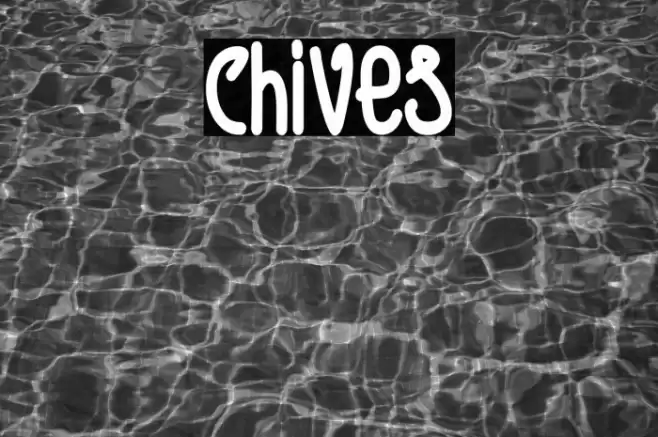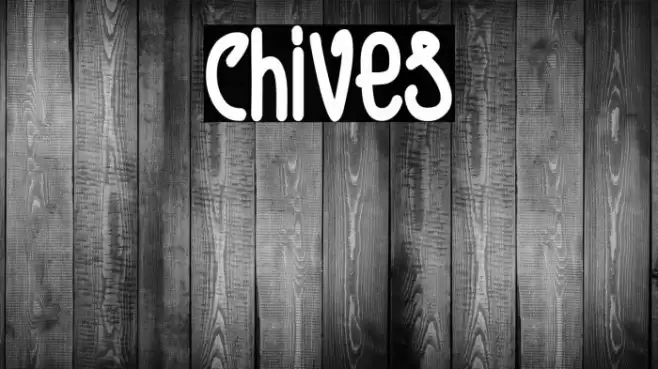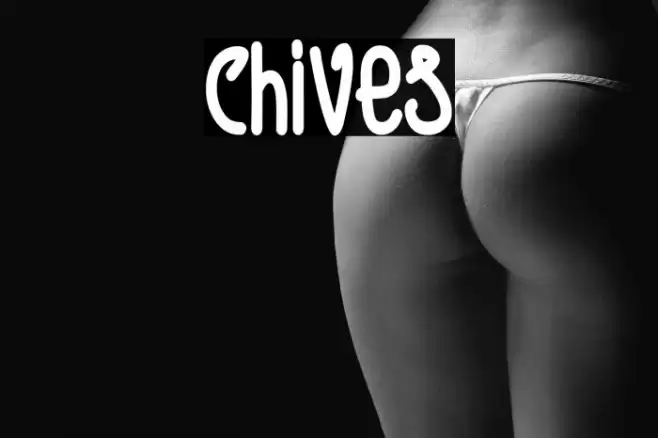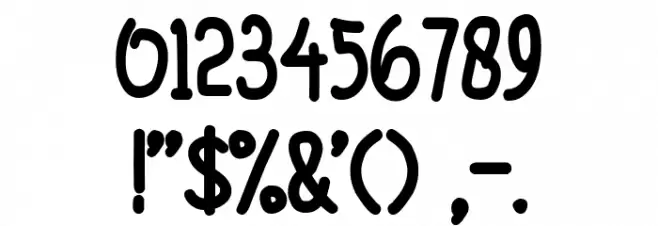
Chives Font
Chives Description
This playful and whimsical font features a bold, rounded style with a hand-drawn appearance. The characters are slightly irregular, adding a sense of fun and creativity. The uppercase and lowercase letters maintain a consistent thickness, while the numbers and special characters complement the overall design. The font's unique style makes it stand out, with a friendly and approachable vibe that is perfect for informal and creative projects.
A playful, hand-drawn font with bold, rounded characters from Regular fonts.
- Proposed Projects: Ideal for children's books, playful branding, greeting cards, and creative posters.
- Overall Style: Playful, Whimsical